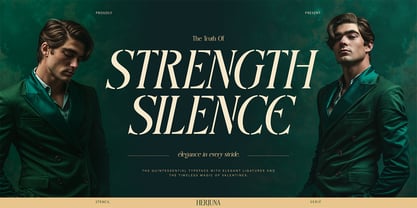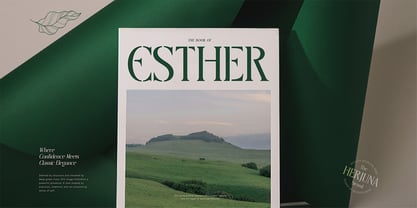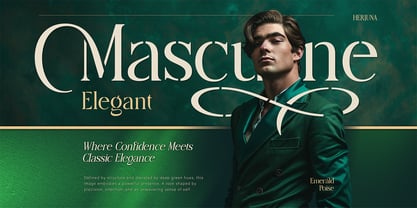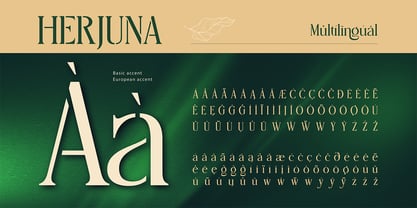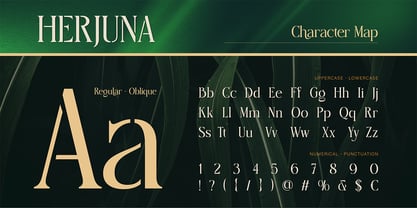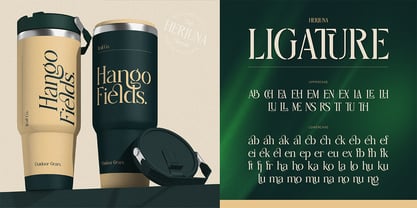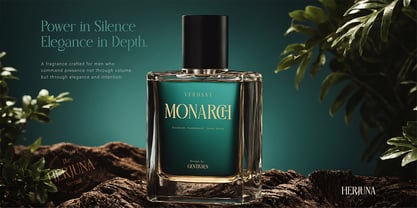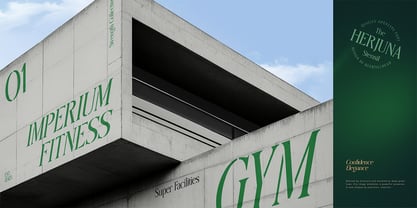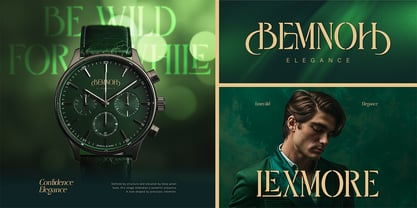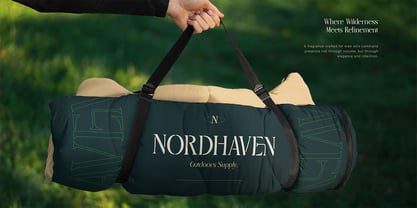
Herjuna
by Burntilldead
The Herjuna Font Family was designed by Eric Kurniawan and published by Burntilldead. Herjuna contains 2 styles and family package options. More about this family
Meet Herjuna, a bold and elegant serif stencil typeface crafted with refined curves, sharp contrast, and luxurious character. Designed to stand out, Herjuna blends classic serif elegance with a modern stencil twist—perfect for premium visual branding. This typeface includes uppercase, lowercase, punctuation, multilingual support, and stylish ligatures, making it versatile for both digital and print projects. With Regular and Oblique styles, Herjuna gives you the flexibility to mix sophistication with contemporary flair. Use Herjuna for logos, packaging, perfume branding, book covers, editorial layouts, invitations, wedding stationery, luxury fashion ads, and high-end product designs. Herjuna isn’t just visually striking—it’s made to leave a timeless impression. Features: A - Z set (Uppercase & Lowercase), Number, Punctuation, Alternate, Ligature, Multilingual